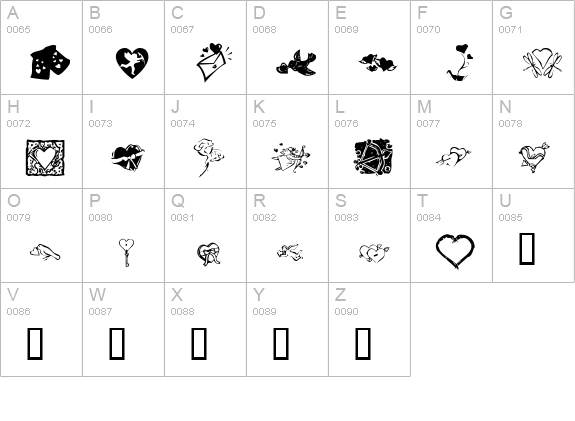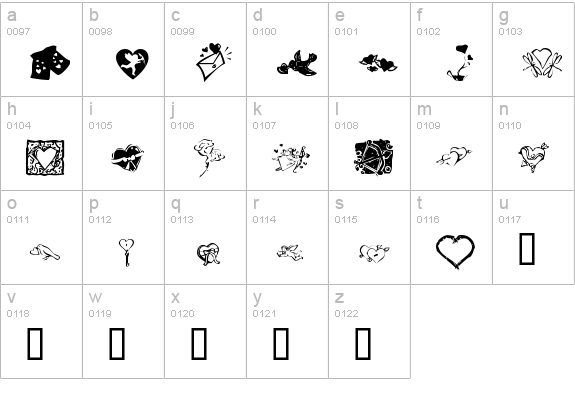
KR Be Mine Always Font Details
The KR Be Mine Always font is a charming and whimsical typeface that exudes warmth and affection. Its elegant yet playful design makes it perfect for a wide range of creative projects, from greeting cards to social media graphics. The font features delicate curves and graceful flourishes that add a touch of romance to any text. One of the best things about the KR Be Mine Always font is that it is completely free to download! You can easily access this beautiful typeface at FontsMarket.com and start using it in your designs right away. Whether you're creating a Valentine's Day card for your loved one or designing a wedding invitation, the KR Be Mine Always font is sure to add a sweet and heartfelt touch to your project. Don't miss out on this lovely font - download it for free today and let your creativity shine with the enchanting KR Be Mine Always font!